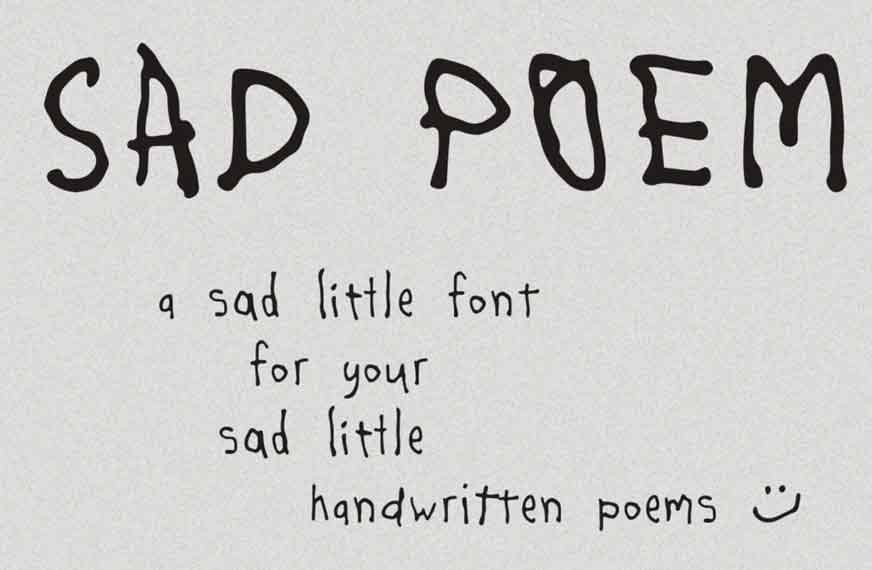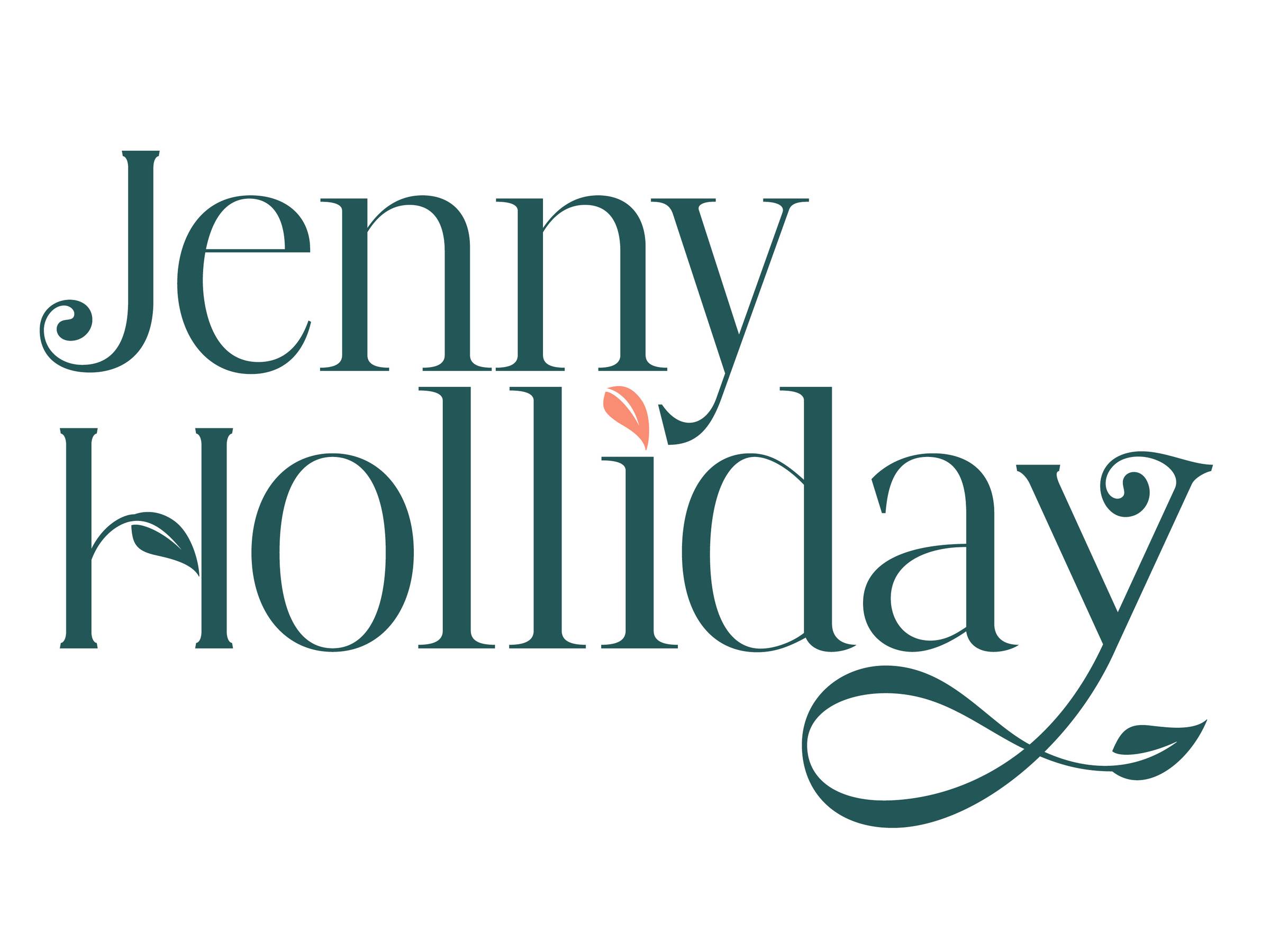
Font ❤️ Friday and Other Designery Things #32
​Jenny Holliday is a Career Happiness Coach. That job title itself makes me smile so much. After meetings with Jenny, I know she’s an advocate of personal growth in people and also has a passion for the outdoors. With all this in mind, I designed her branding with the fonts Moot Jungle (with decorative leaves) and paired it with Fangira typeface.
They say Fangira is a “unique ligature serif font that blends modern sophistication with timeless elegance. Designed with distinctive letter combinations and refined curves, this font is ideal for high-end branding” and The Moot Jungle is an “elegant serif font with a natural twist. Inspired by the beauty of nature, this font features a stunning swash of leaves that adds a touch of sophistication to any design.” So you actually get two fonts this month 🙂
FONTS
TypeHeist
I’ve been moseying around the TypeHeist website and selected a couple of pages I think you’ll enjoy.
Handwritten font pairings
The peeps over at TypeHeist very kindly produced a 52-page guide on how to pair handwritten fonts. It’s full of tips and tricks of ways to use them. I know sometimes I get stuck and a little inspo can help. Have a look here and get yours.
Wanted - a happy home
While delving into handwritten fonts I saw a typeface called Sad Poem. All together now, “aww!” You know me, I’m normally here for the happy stuff. But this typeface Sad Poem got me… so adopt it and give it a happy home please!
I’ve recently been using Small Business Britain. They have lots of programmes to help you with your business. Yes, including you dear freelancer. You are still running a business, it’s just solo! I recently completed the Small & Mighty Enterprise Programme and the closing event was an invitation to the House of Lords! Blimey, again! I’ve been there twice in two months (remember that blog on report design I wrote that got me there the first time round?)
I’ve signed up to their Green Growth Programme, a free 6-week CPD-certified course run in partnership with BT starting in September. We’re all aware of environmental issues, but I’d like to learn more about how I can make a difference in my business.
Small Business Britain have recently published the Willow Review on Small and Medium-sized Enterprises about sustainability. You can download it here.